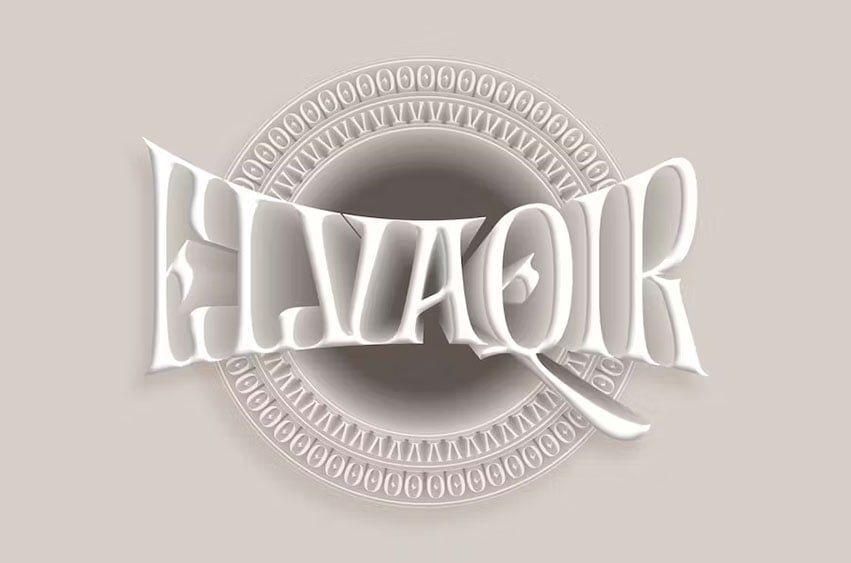
Elvaqir Font All caps Gothic Display font. Good for display and Title with big size purpose also fit for text and paragraph. Complete with OpenType feature, multilingual, and nice for print, social media and any other purpose. luxury and masculine style come from the whole character, is still good even used for logo or initials. Let’s fit your design need with “Elvaqir Typeface”.